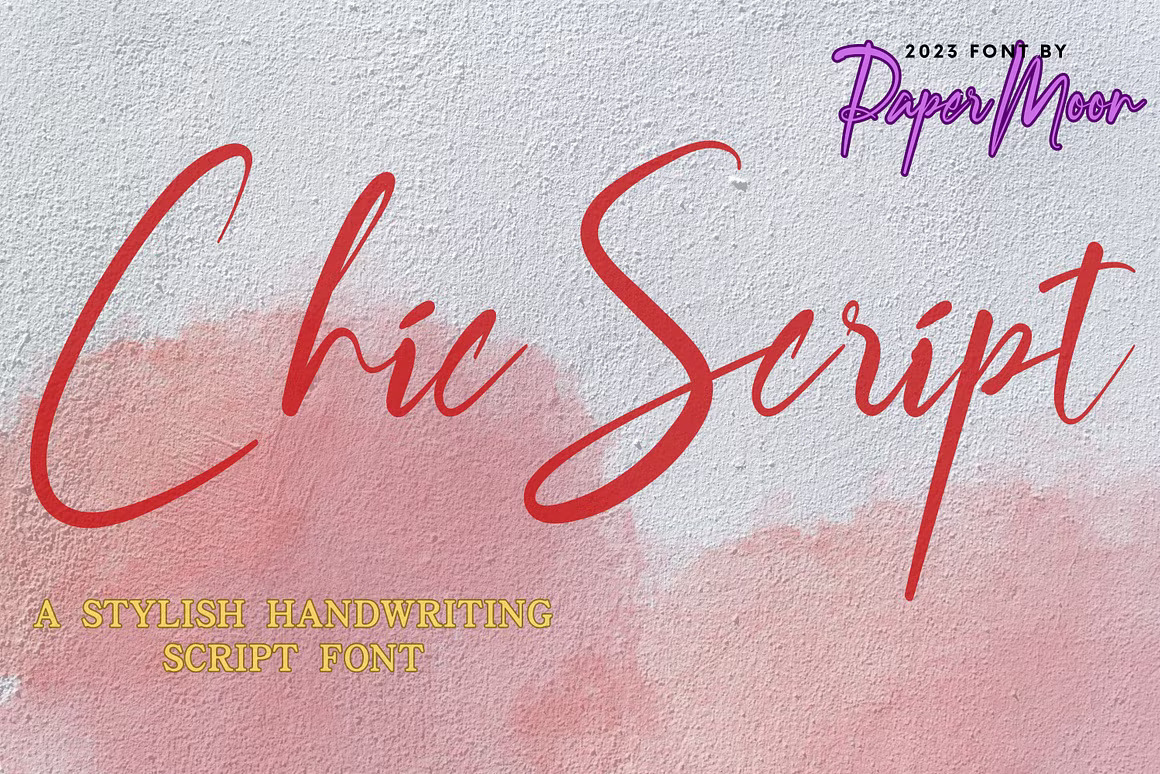
ChicScript Stylish Handwritten Font
Introducing ChicScript: An Elegant Handwritten Script Font with a Signature Flair
Expertly crafted by PaperMoon, ChicScript is an exquisite handwritten script font that brings a touch of sophistication and style to any project. Its flowing, signature-inspired lines make it the ideal choice for various industries, including architecture, literature, cosmetics, crafts, homeware, publishing, salons & spas, and wedding planning.
⦿ Key Features:
Complete Uppercase & Lowercase Characters: Full set of basic characters for versatility in your designs Numbers & Punctuation: An extensive range of symbols for comprehensive use Ligatures & Alternates: Add stylish variations and unique combinations to your typography Swoosh Elements: Infuse your designs with an extra touch of elegance Meticulous Kerning: Perfectly spaced characters for a polished and professional appearance ChicScript is designed to elevate any project, from business cards and bespoke designs to labels, product packaging, quotes, titles, and beyond. The carefully designed characters and attention to detail bring refinement and elegance to your work. Access alternate glyphs with any design software that supports OpenType features, such as Adobe Illustrator CS or Adobe InDesign.